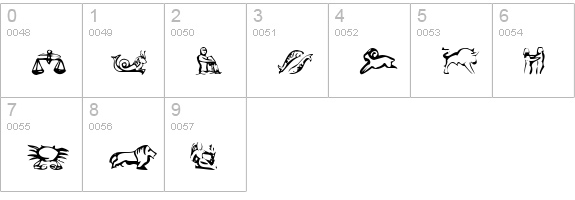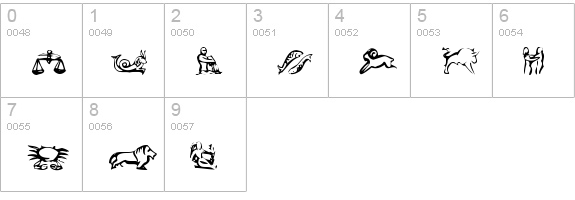
EileensLittleZodiac Font Details
EileensLittleZodiac is a whimsical and playful font that captures the essence of the zodiac signs in a unique and charming way. This font features intricate designs and intricate details that make it perfect for adding a touch of magic to your projects. With its fun and quirky style, EileensLittleZodiac is sure to stand out and make a statement. Best of all, EileensLittleZodiac is completely free to download at FontsMarket.com. Whether you're looking to add a touch of astrology to your designs or simply want to experiment with a fun and creative font, EileensLittleZodiac is the perfect choice. Download it today and let your imagination run wild with this delightful and enchanting font.